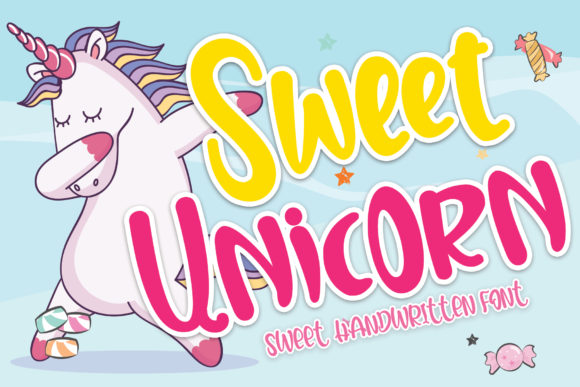
Journey through a world of whimsy and charm with Sweet Unicorn Font, a script typeface designed to capture the essence of enchanting fairytales. Step into a world where dreams dance on paper, and imagination knows no bounds.
Crafted with meticulous attention to detail, Sweet Unicorn Font exudes a playful and inviting spirit. Its graceful strokes and whimsical curves are like a melody written in ink, inviting you to embrace your creativity and let your imagination soar.
With Sweet Unicorn Font, ordinary words transform into enchanting tales. Express your heartfelt emotions in letters that dance across the page, adding a touch of magic to every message. Create whimsical invitations that promise an unforgettable experience, or design charming logos that spark curiosity and delight.
The versatility of Sweet Unicorn Font knows no limits. Whether you're designing T-shirts that spread joy with every wear, crafting personalized cards that touch hearts, or creating enchanting graphics that captivate audiences, this font is your trusted companion.
Imagine your designs adorned with Sweet Unicorn Font, captivating your audience with its undeniable charm. Let your creativity flourish as you weave words into works of art, leaving a lasting impression on all who encounter them.
Embrace the magic of Sweet Unicorn Font and embark on a journey where creativity and enchantment intertwine. Let your imagination run wild as you create designs that resonate with your audience, leaving them spellbound and eager for more.